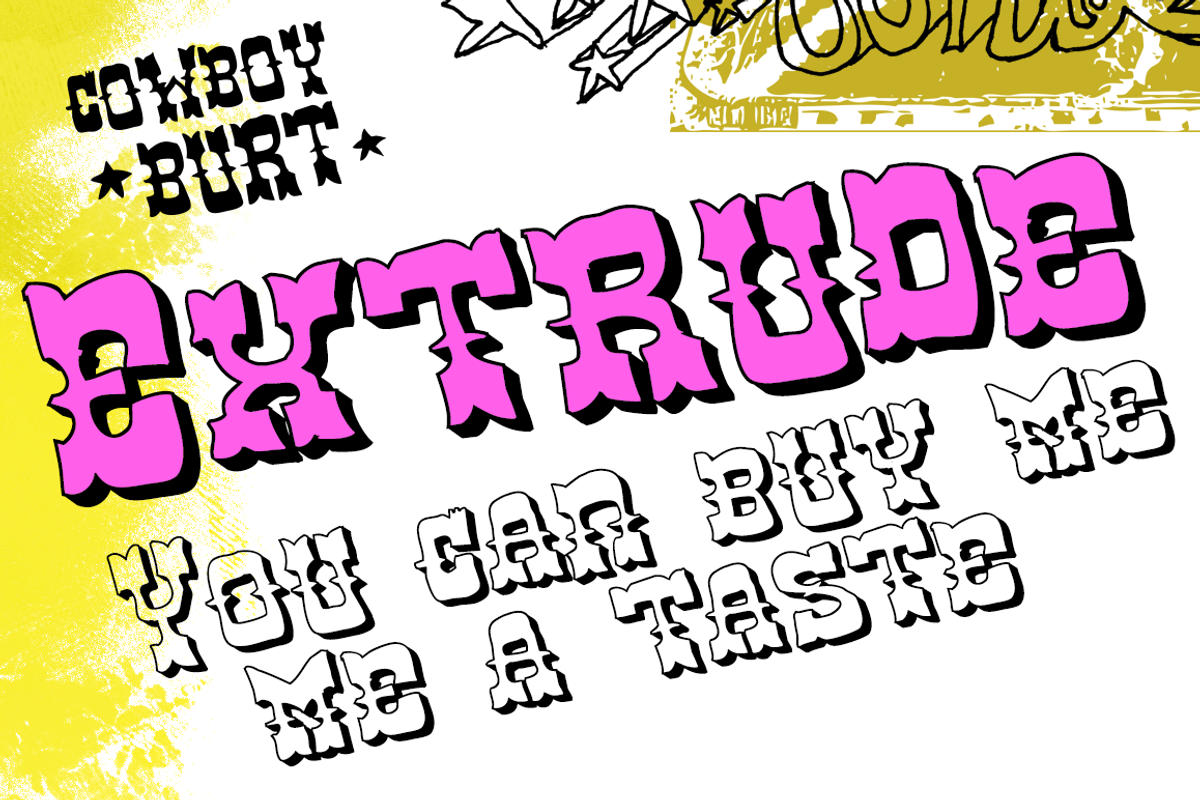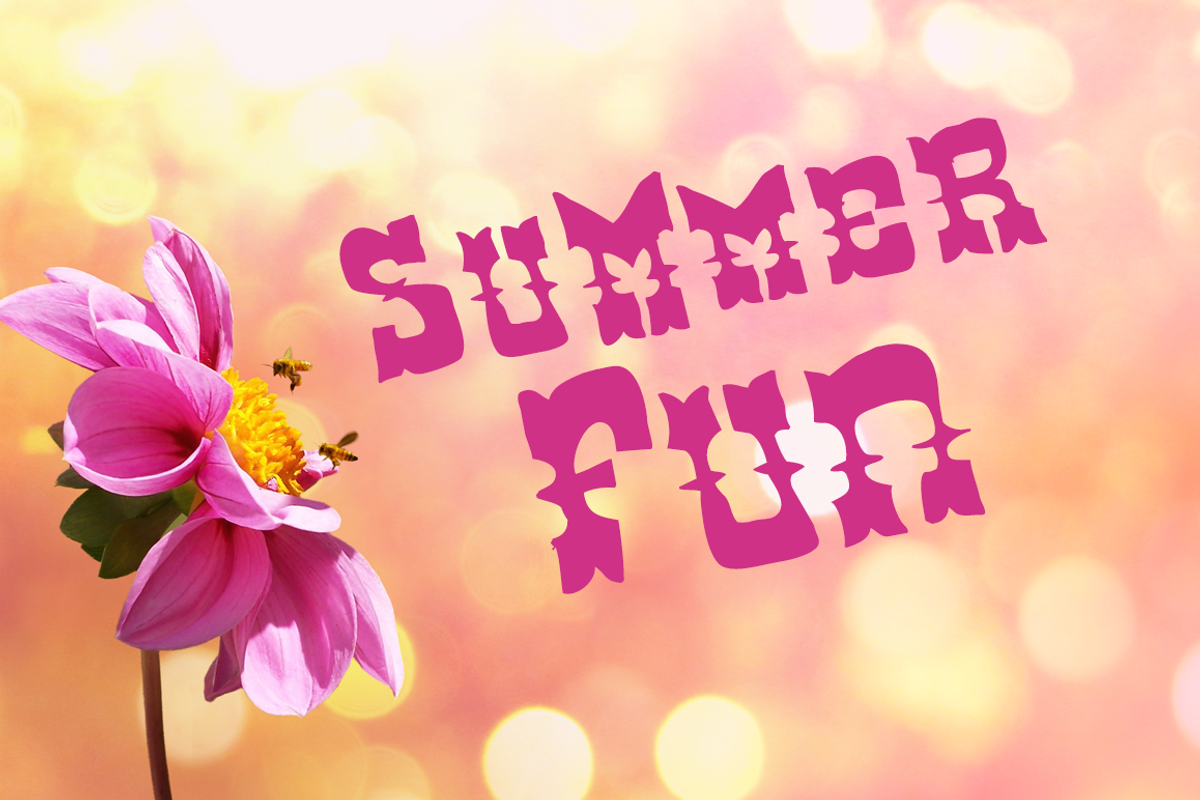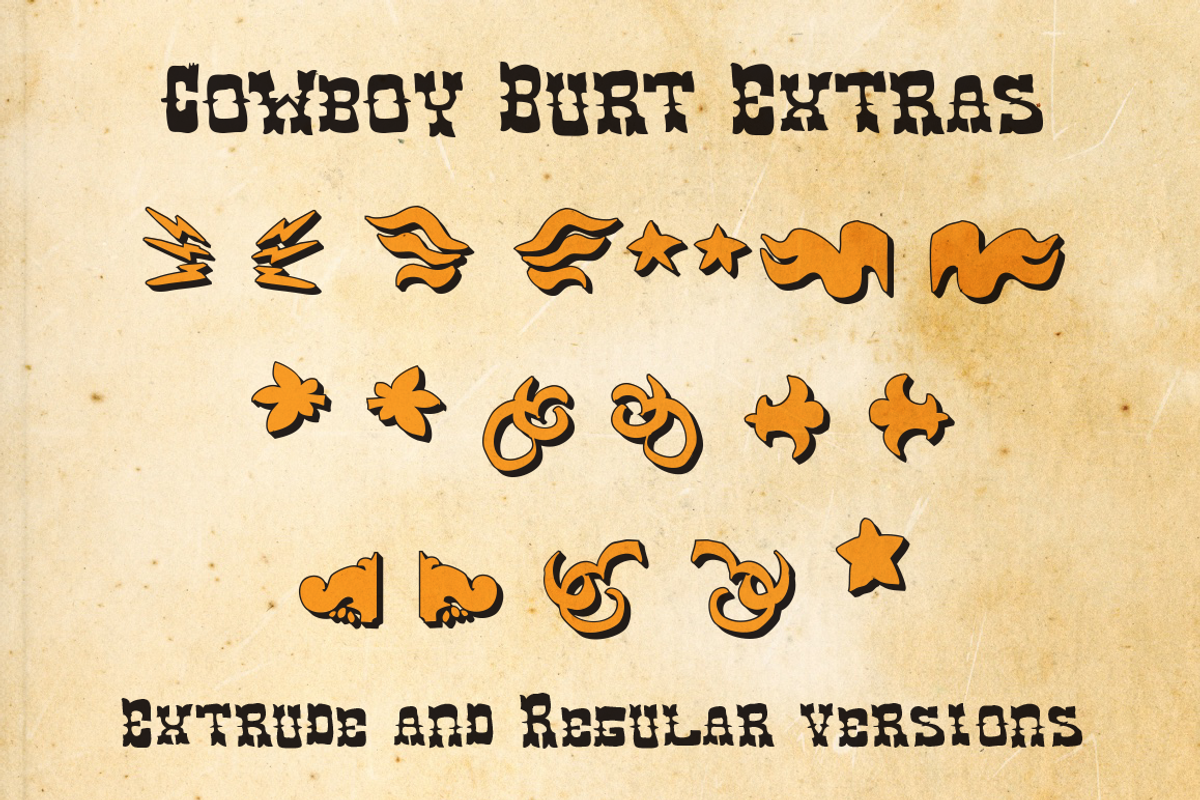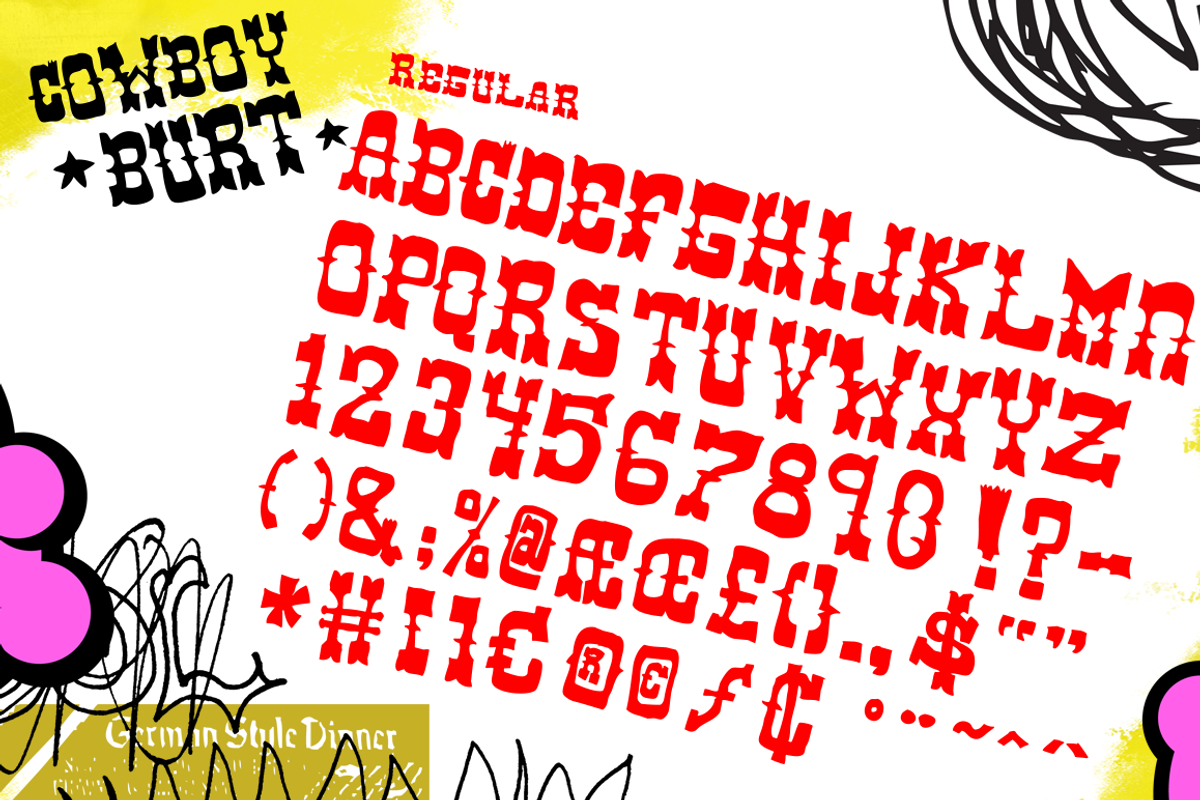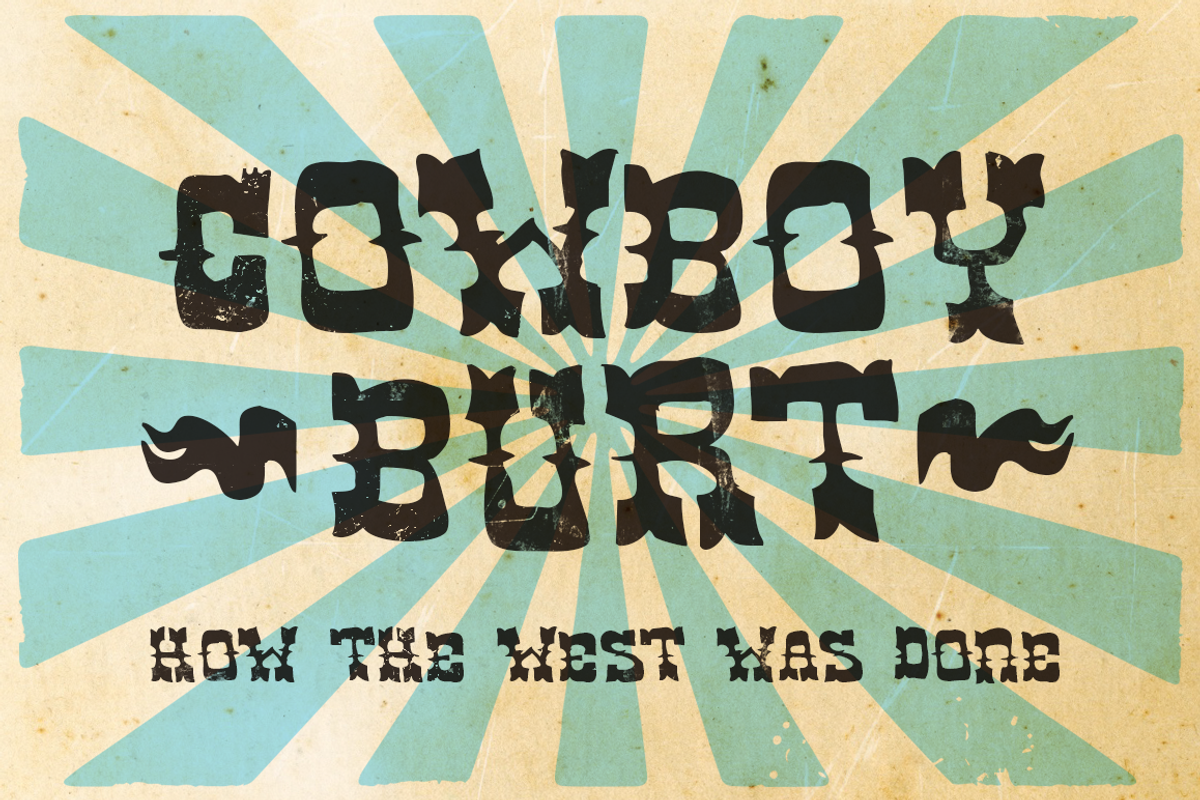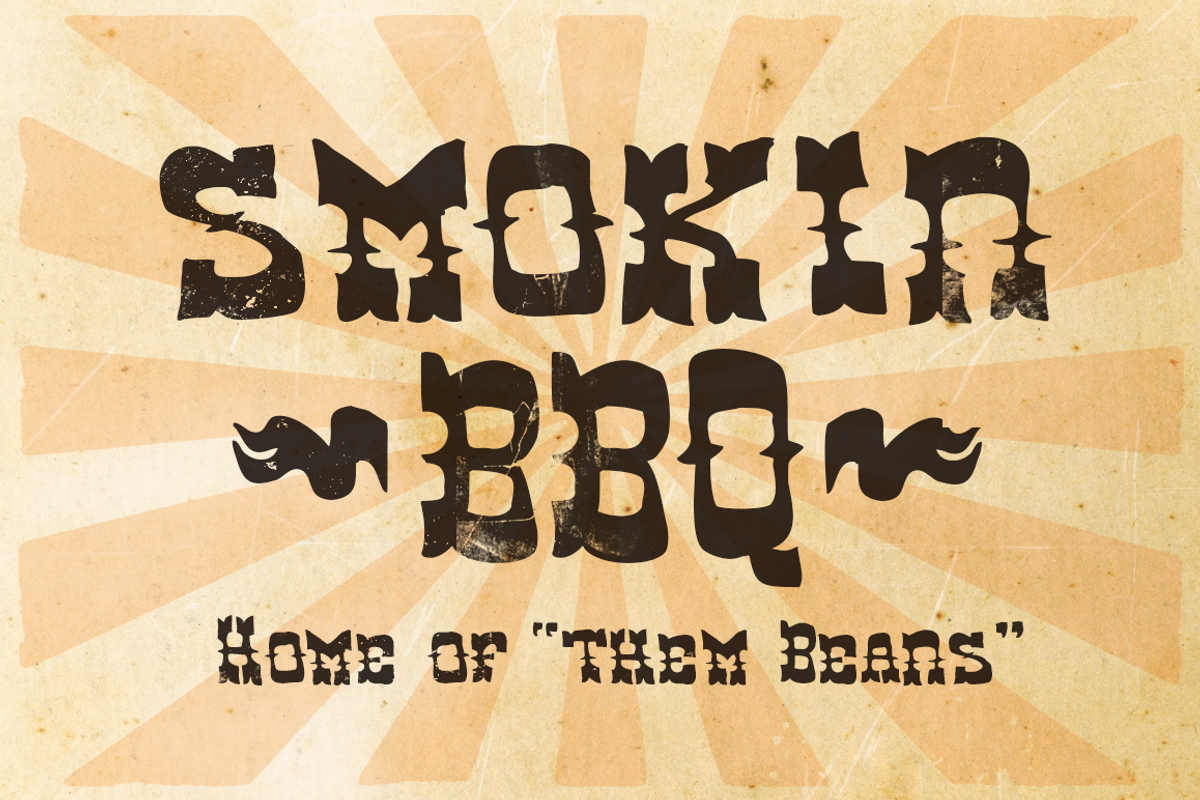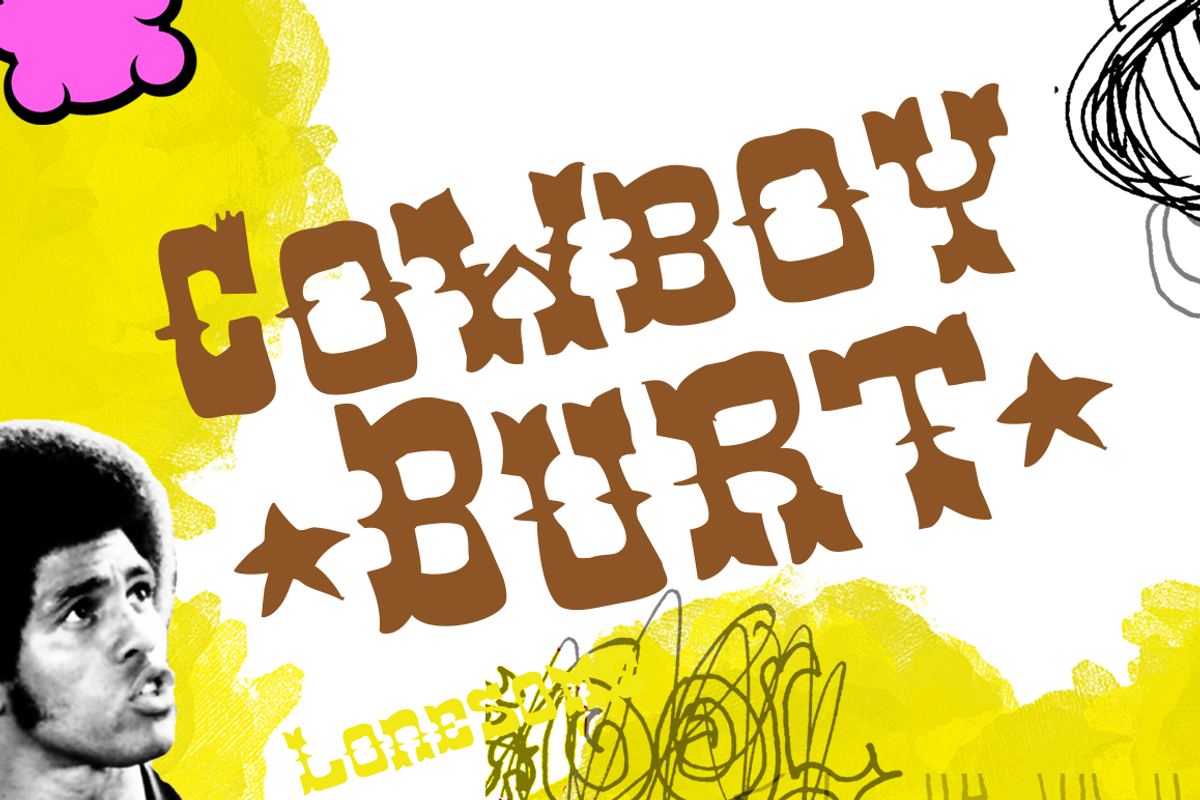
Cowboy Burt
Cowboy Burt is a hand drawn western style font with lots of humor and attitude. It includes a regular and Extrude versions so you can stack them to create and extruded or shadow effect. It's a smalll-caps typeface so you can create more random variation in your designs. Think of Cowboy Burt as a font that was once a cowboy, but now he’s a carnie who runs the tilt-a -whirl (kinda warped). Fonts include the full character set with numbers, punctuation, accents, etc
- It includes a regular and Extrude versions so you can stack them to create and extruded or shadow effect.
Note: There are extra flourishes/dingbats included in each font.